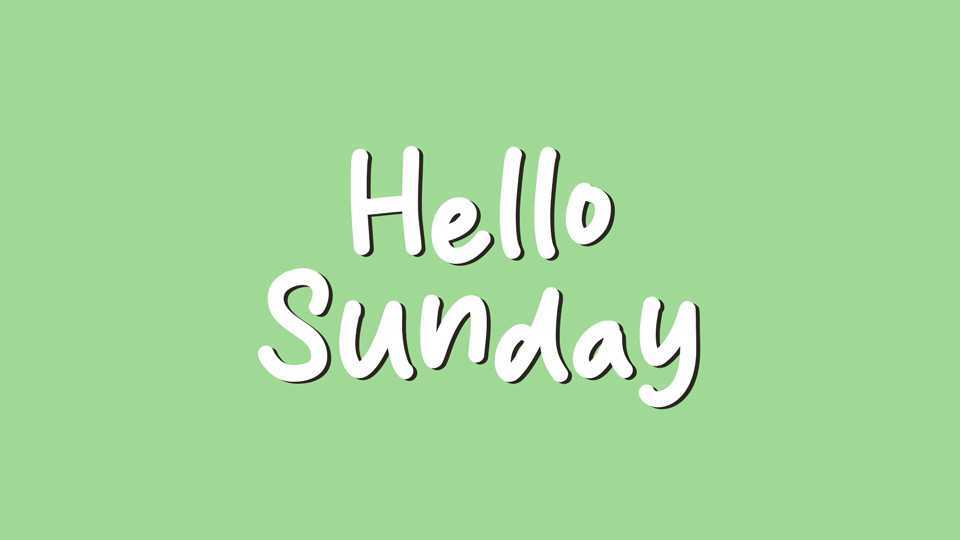
Download Hello Sunday font, a hand lettered comic typeface filled with a cheerful, natural vibe. Add a playful and sweet touch to your designs with Hello Sunday font.